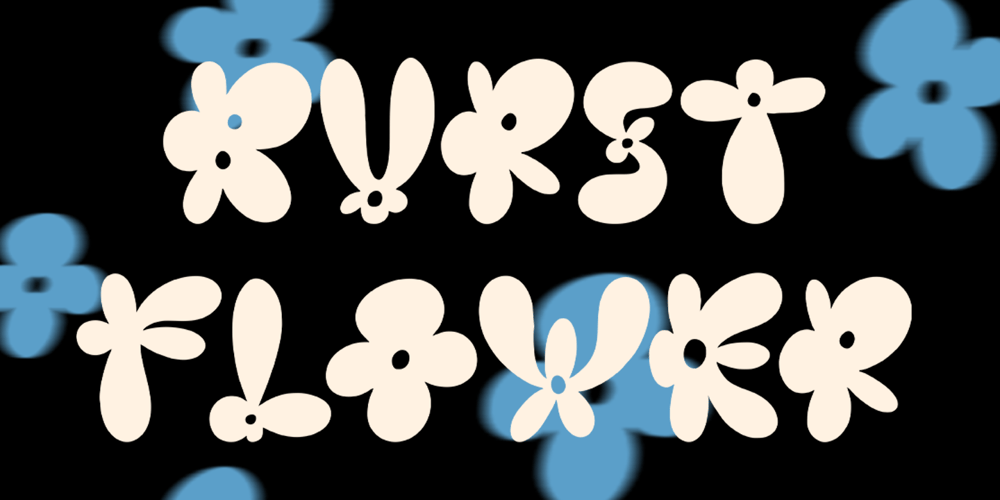
Burst Flower Font Family was designed by Miftahul Habib and published by Wasabib Type Foundry. Burst Flower contains 3 styles and family package options. BURST FLOWER is a display font that coming with 3 style( Regular, Outline, Extrude )every style have their own power to make your design stunning and stand out.Burst Flower create by 100% hand drawing to get the artistic look.